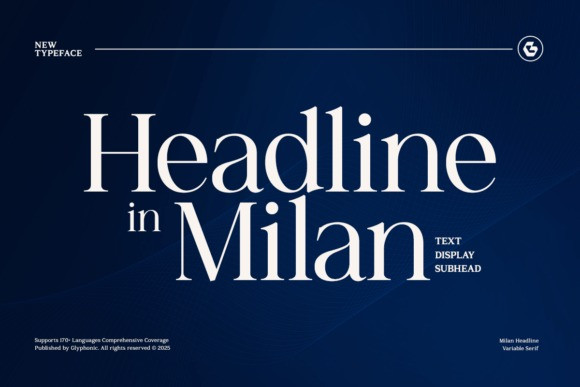
Headline in Milan Font
Headline in Milan Font – Classy Serif Family is an elegant serif typeface crafted to bring a refined, high-end aesthetic to any visual project.
Designed with balanced proportions, graceful serif details, and a timeless modern-classic character, this font delivers a sophisticated presence across both print and digital media.
Created specifically for striking and stylish headlines, Headline in Milan is perfect for luxury branding, fashion editorials, artistic identities, and any design that demands a touch of elegance. Each letterform blends softness with confidence, resulting in a distinctive look that elevates your visual storytelling.
Whether you’re crafting bold titles, premium editorial layouts, high-end logos, or expressive posters, Headline in Milan adds a classy and timeless charm to your typography.